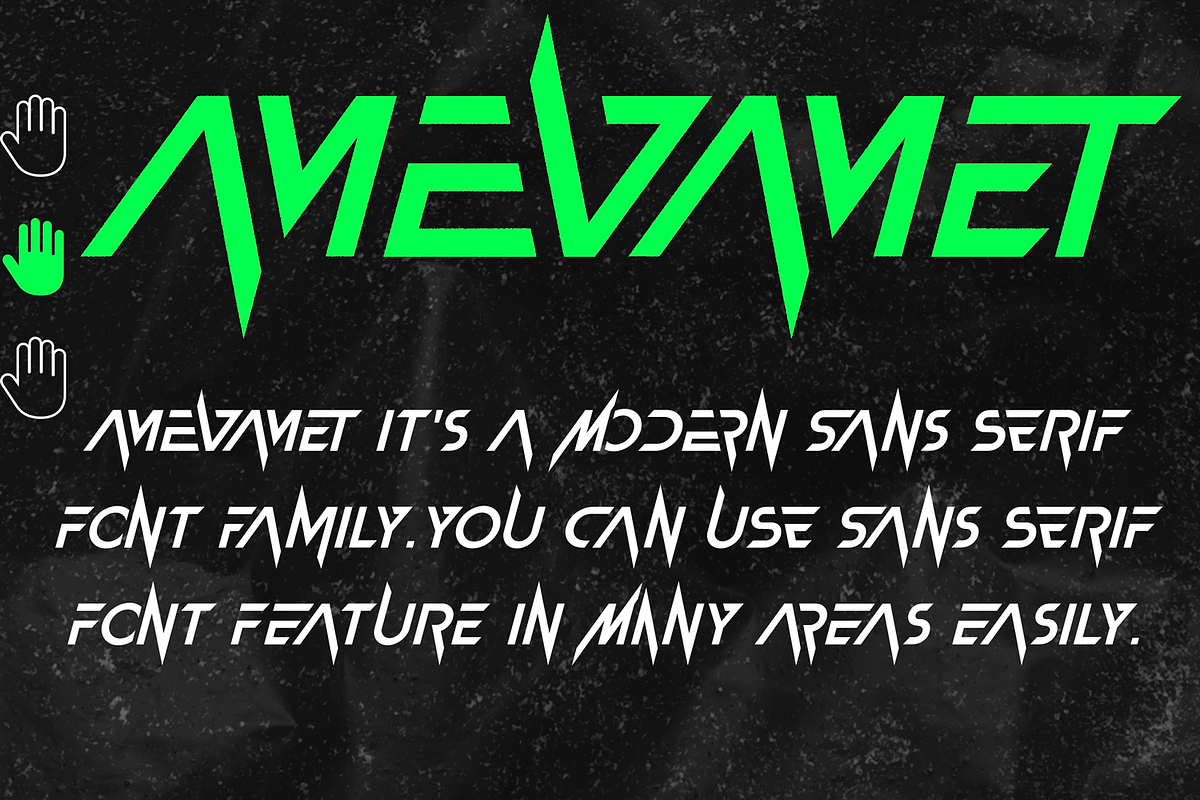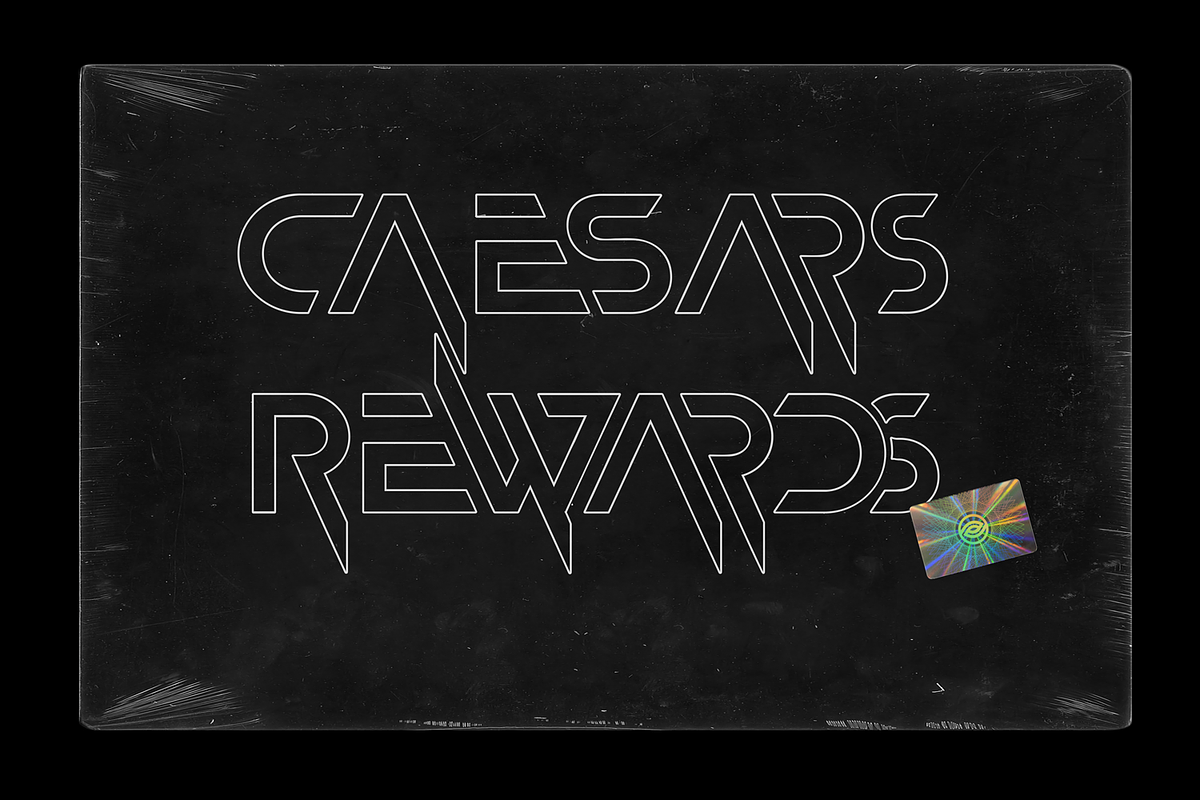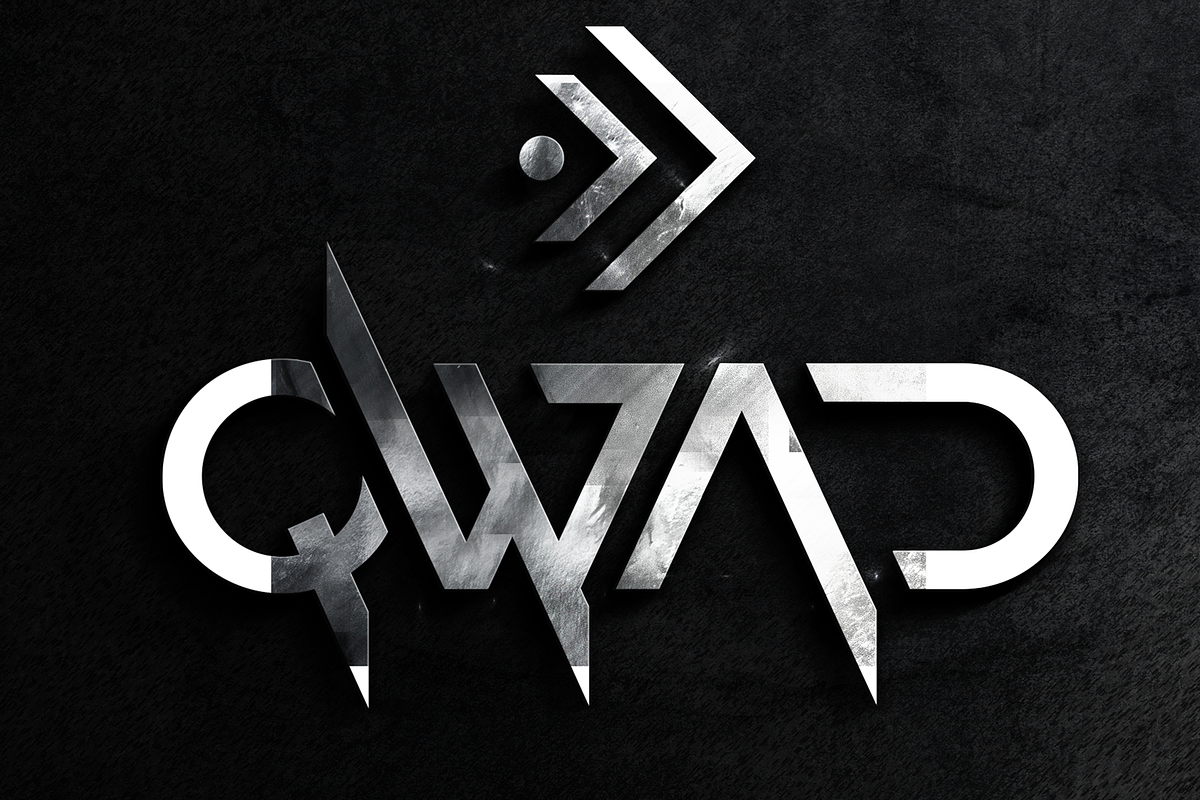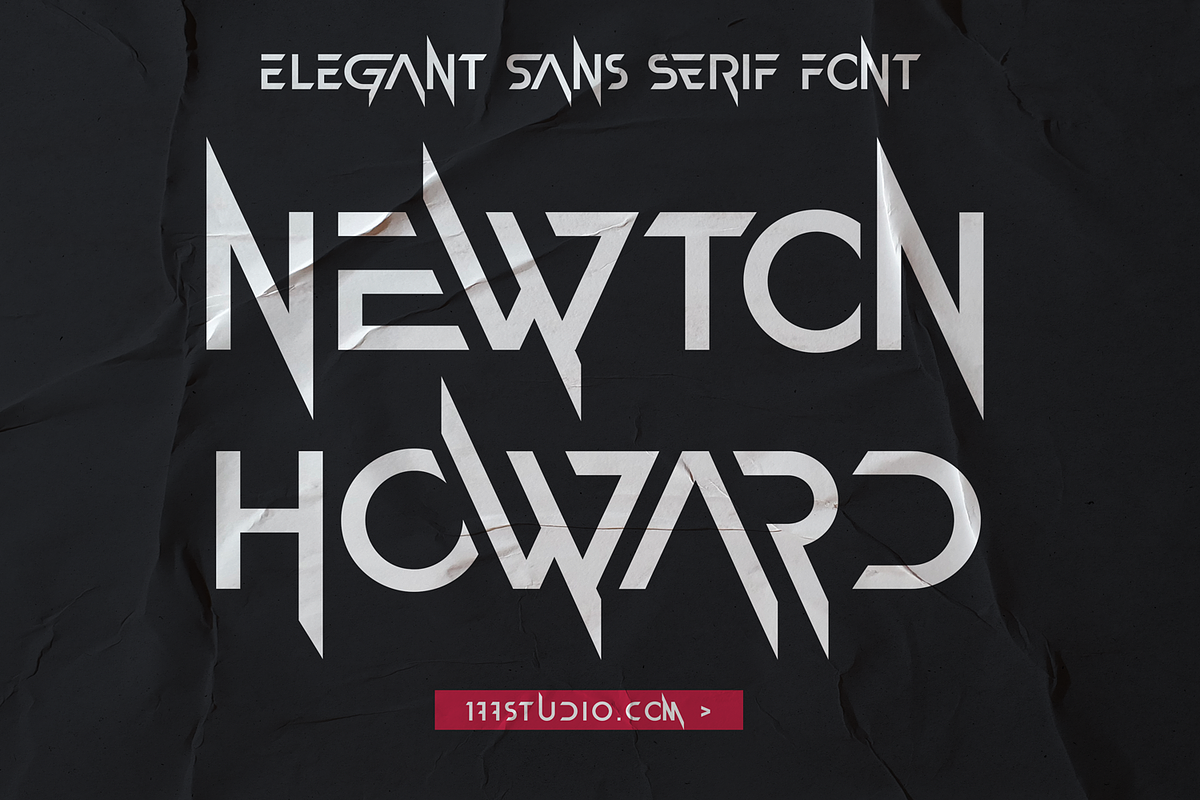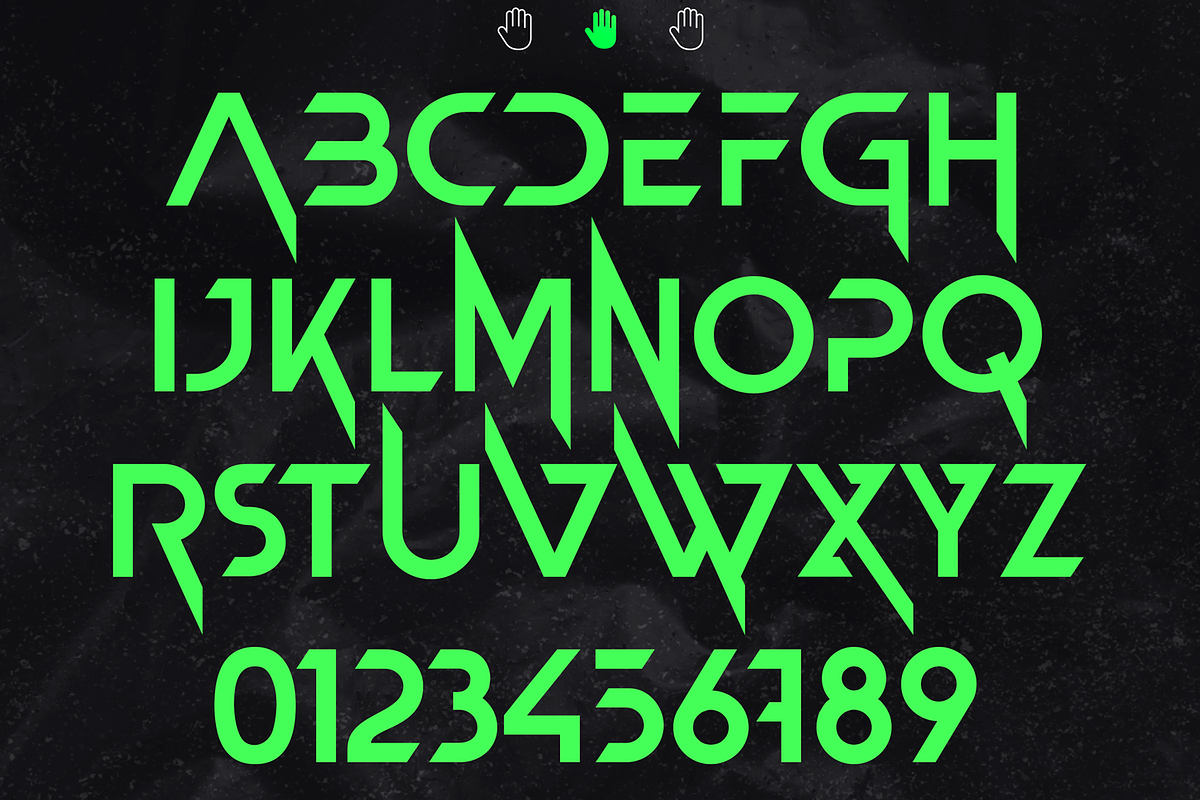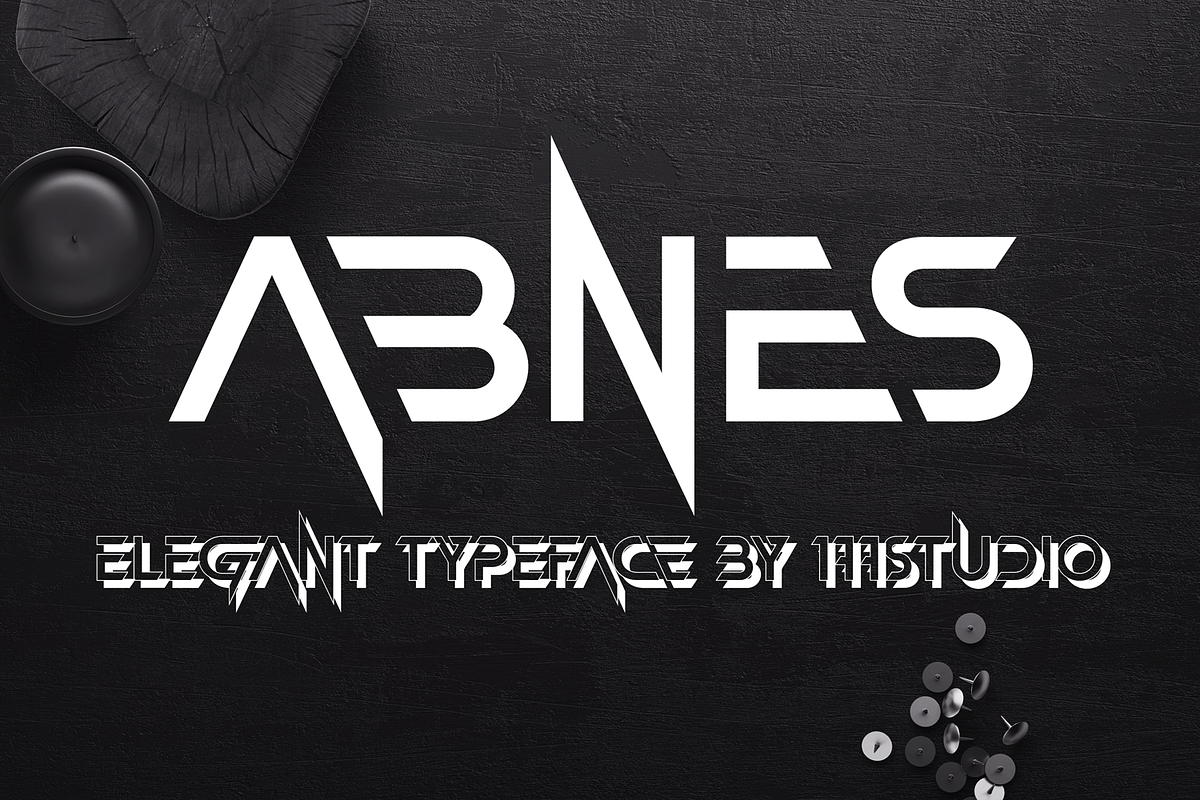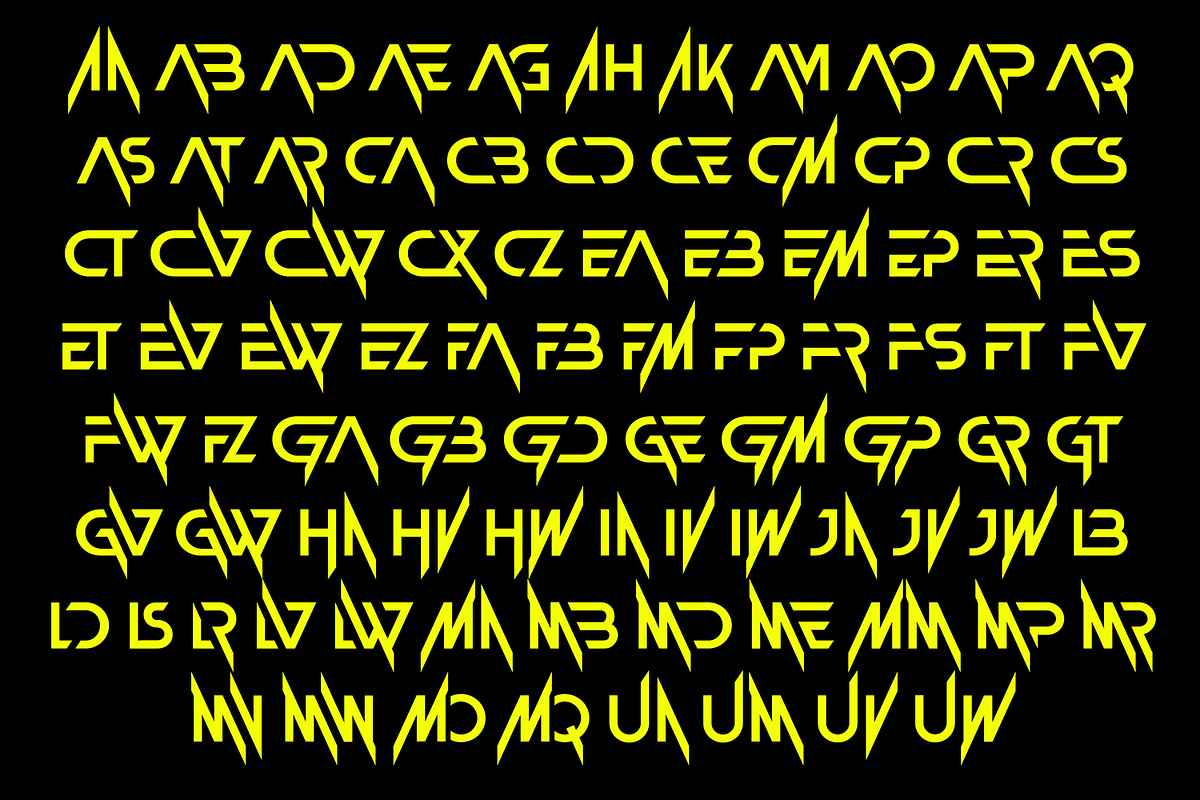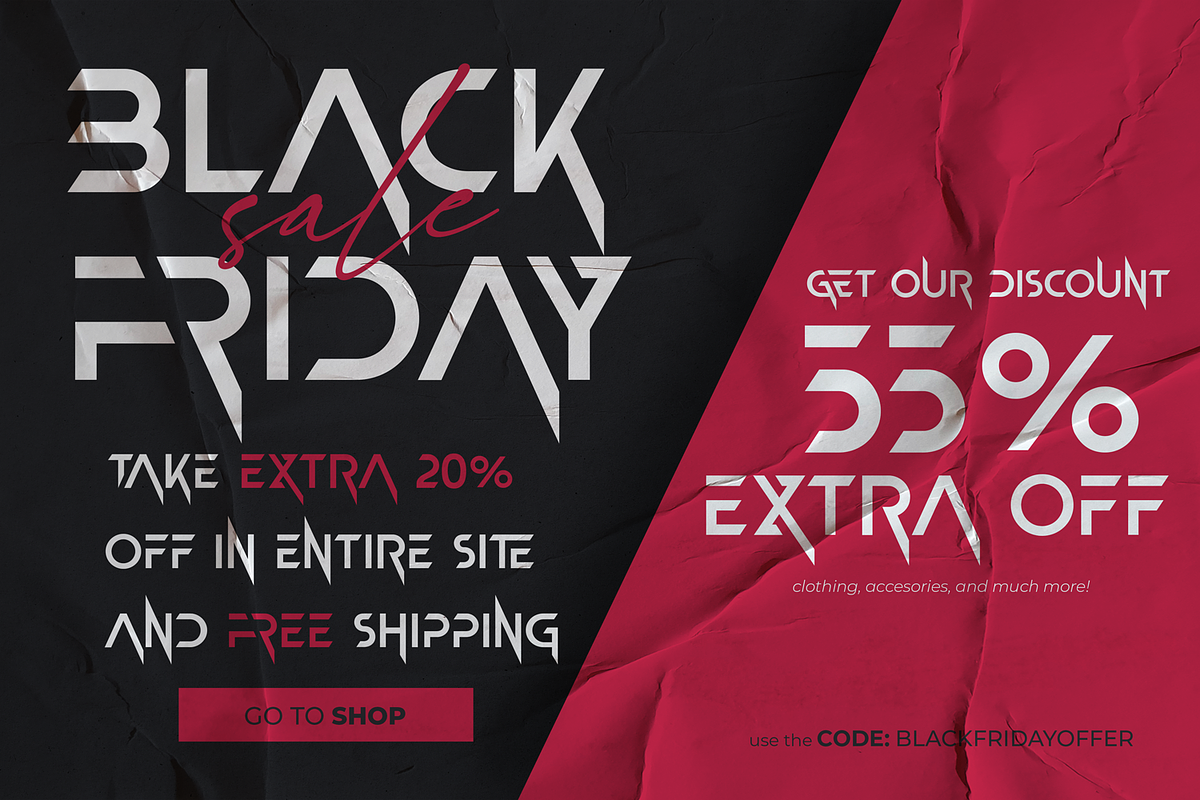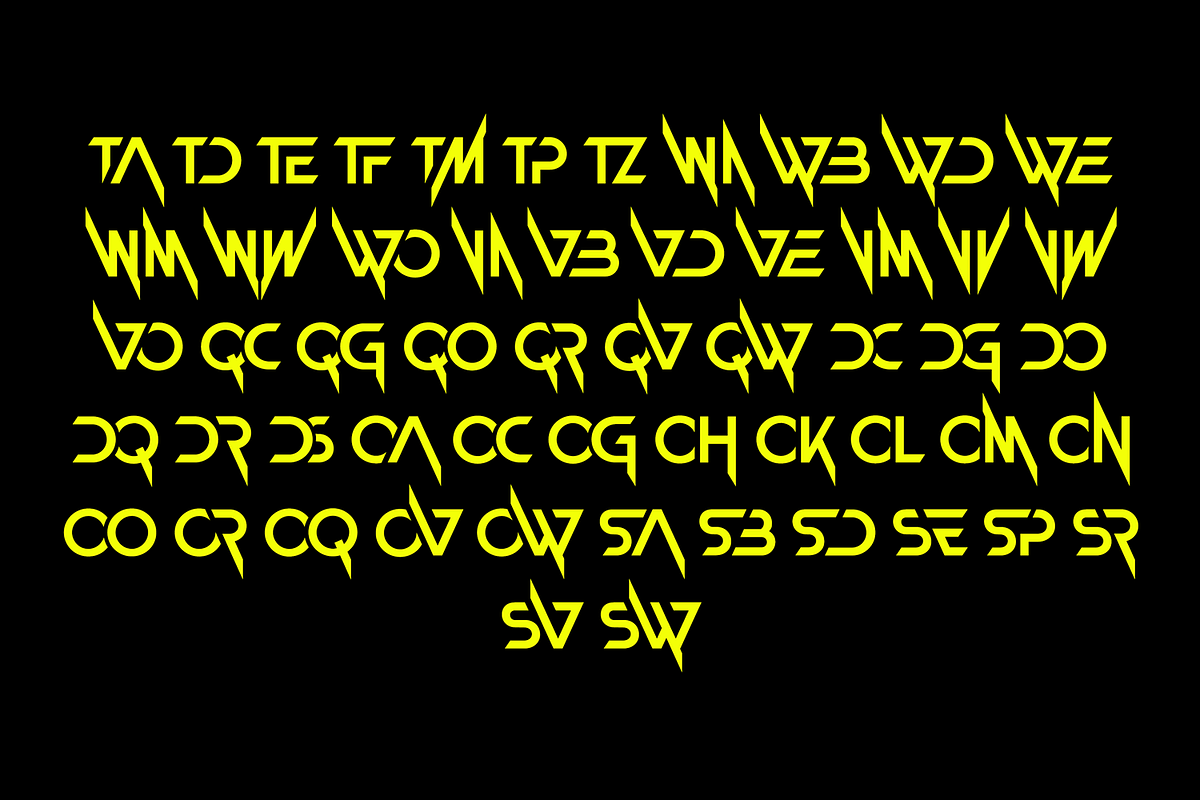
Newton Howard Font
Newton Howard Font a modern futuristic font, this is a font with a futuristic edge, geometric corners, perfect for technology theme. Newton Howard Font comes with a range of OpenType features and it's works perfect for any graphic design challenge: webdesign, packaging, logo design, etc.
To make it look more unique, here we prepared some ligatures:
AA AB AD AE AG AH AK AM AO AP AQ AS AT AR CA CB CD CE CM CP CR CS CT CV CW CX CZ EA EB EM EP ER ES ET EV EW EZ FA FB FM FP FR FS FT FV FW FZ GA GB GD GE GM GP GR GT GV GW HA HV HW IA IV IW JA JV JW LB LD LS LR LV LW MA MB MD ME MM MP MR MV MW MO MQ UA UM UV UW TA TD TE TF TM TP TZ WA WB WD WE WM WW WO VA VB VD VE VM VV VW VO QC QG QO QR QV QW DC DG DO DQ DR DS OA OC OG OH OK OL OM ON OO OR OQ OV OW SA SB SD SE SP SR SV SW...
Newton Howard is also included full set of:
- Special Ligatures